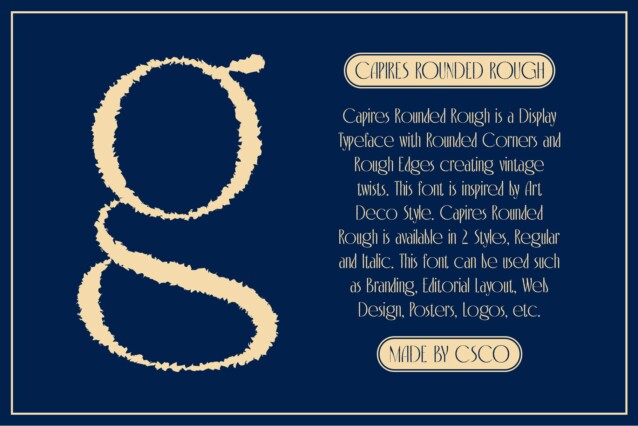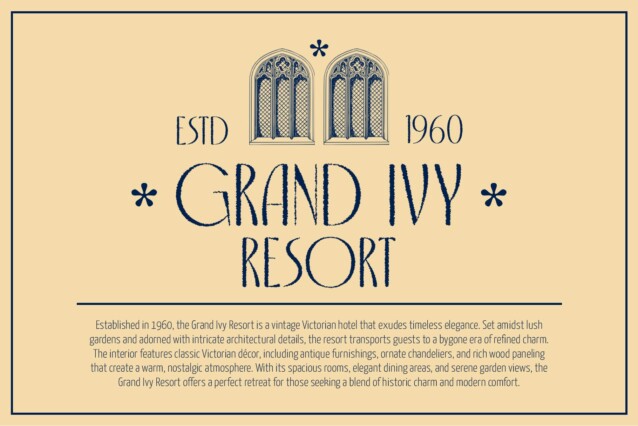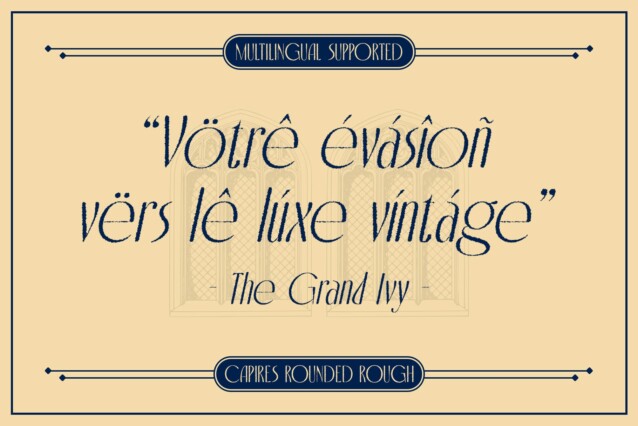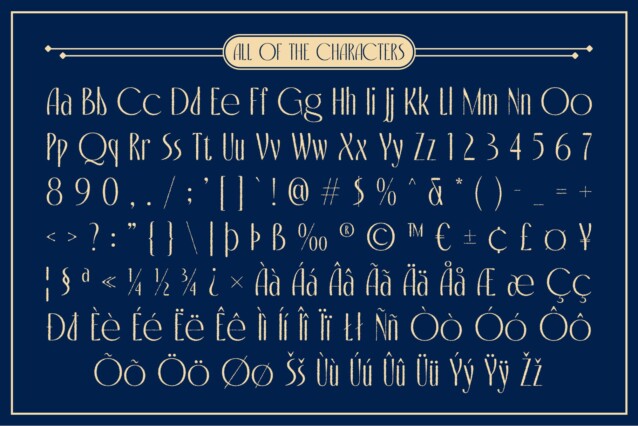
Capires Rounded Rough Font
Capires Rounded Rough Font is a modern sans-serif font that blends the clean, geometric elegance of Art Deco with a rough, distressed texture, creating a bold yet approachable style. The sleek, straight lines typical of Art Deco are softened by rounded edges, adding a sense of warmth and friendliness. The rough texture gives this font an edgy, urban vibe while still retaining its sophisticated design roots. This makes it perfect for projects that seek a blend of vintage glamour and contemporary attitude.